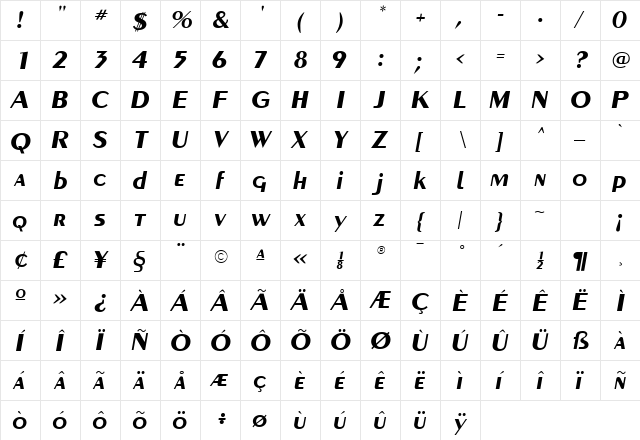
Paquete SSi Bold Italic
Design Context for Paquete SSi Typeface
Paquete SSi takes a measured approach to typography — its balanced proportions and neutral character make it a reliable workhorse for both digital and print work. Its italic angle brings a sense of urgency and motion to the letterforms. The heavy weight commands attention and anchors typographic hierarchies.